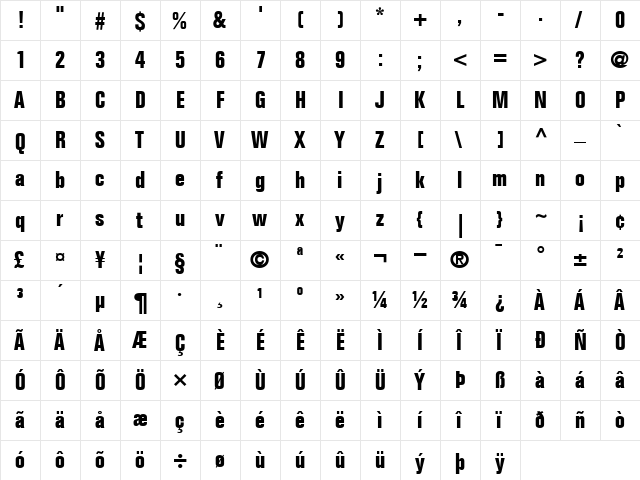
Folio-Condensed Bold
Design Context for Folio-Condensed Typeface
Folio-Condensed is a composed and adaptable typeface that performs quietly and consistently across a wide range of design contexts. Its bold stroke weight gives it real presence on the page. Its narrow stance lets it pack a punch even in space-constrained designs.